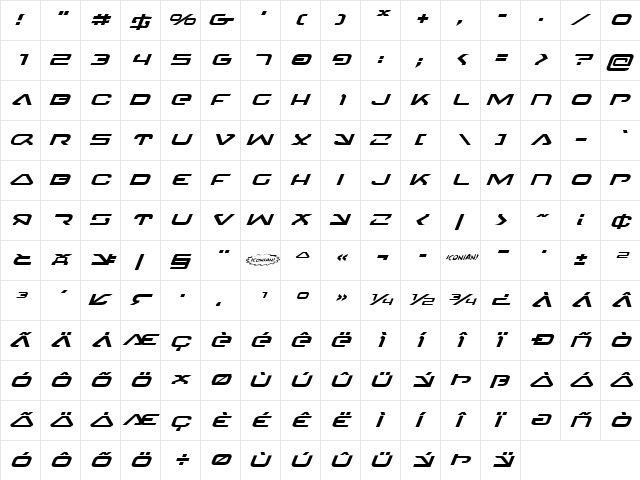
4114 Blaster Expanded Italic Expanded Italic
Design Context for 4114 Blaster Expanded Italic Typeface
4114 Blaster Expanded Italic is a composed and adaptable typeface that performs quietly and consistently across a wide range of design contexts. The slanted form adds forward momentum and visual energy.
Pro Tip: Try 4114 Blaster Expanded Italic for annotation and caption copy alongside an upright companion — the contrast in angle creates a dynamic but ordered typographic system.